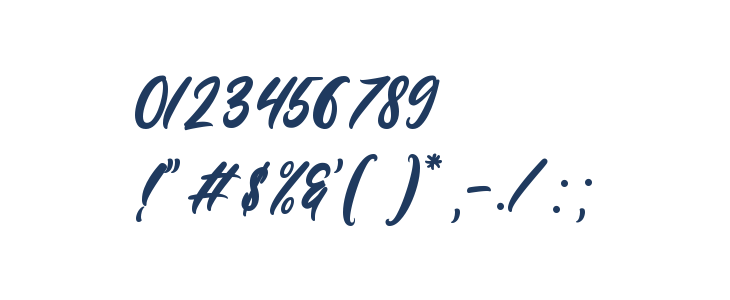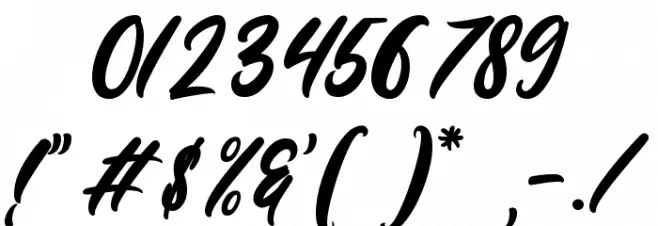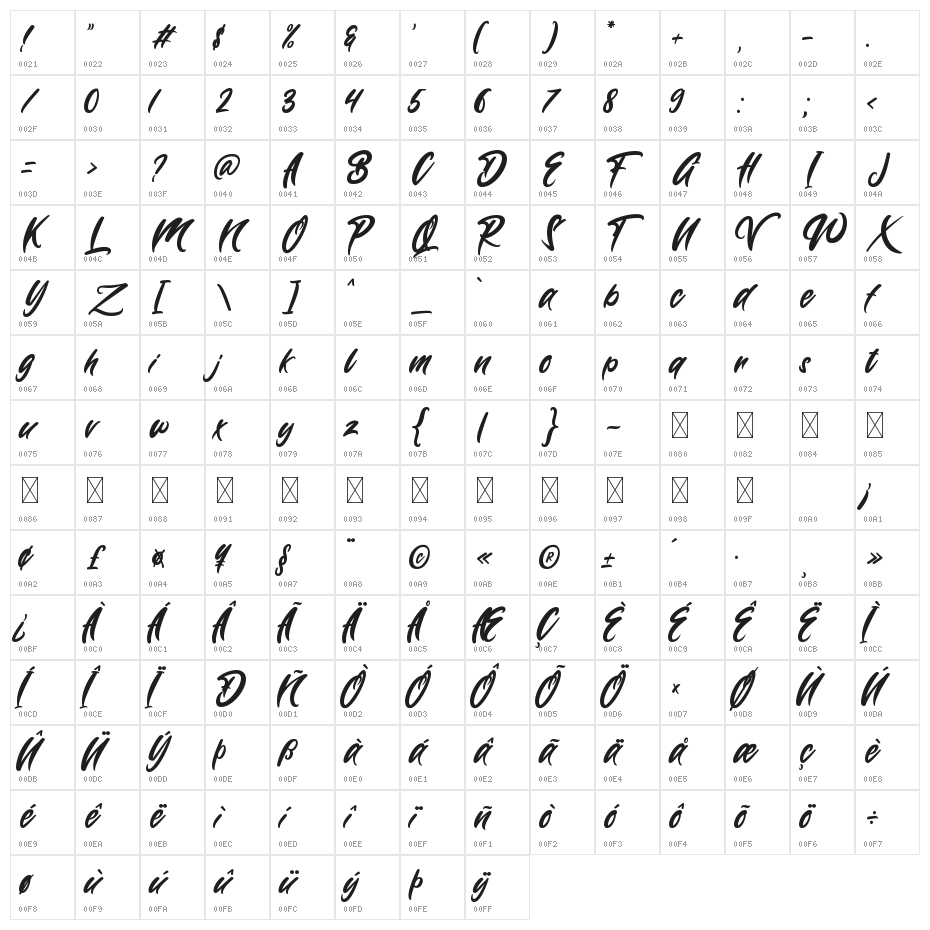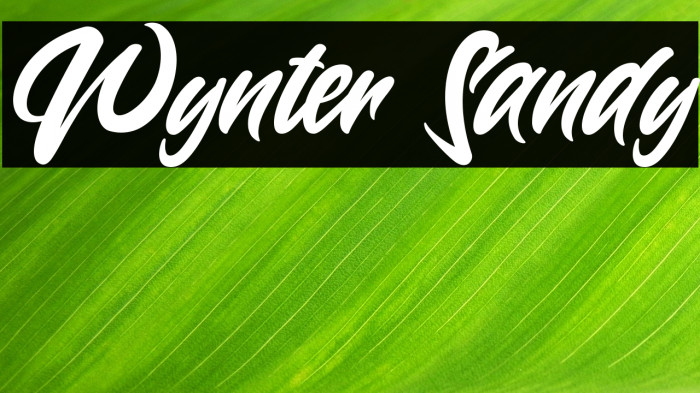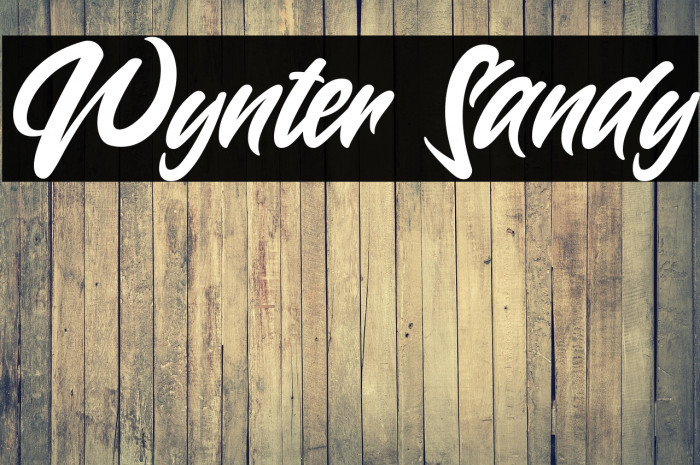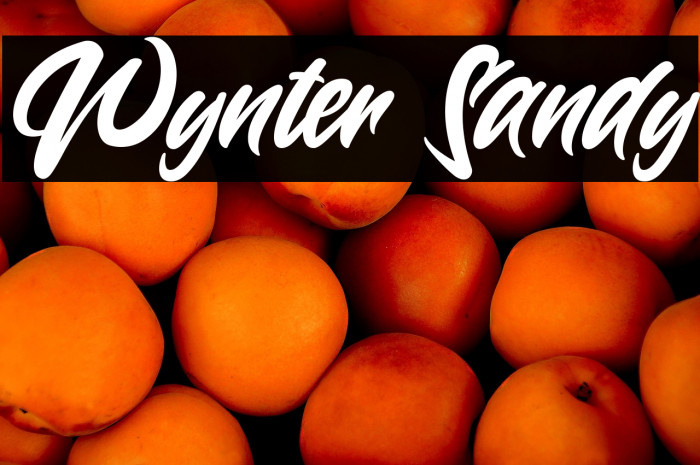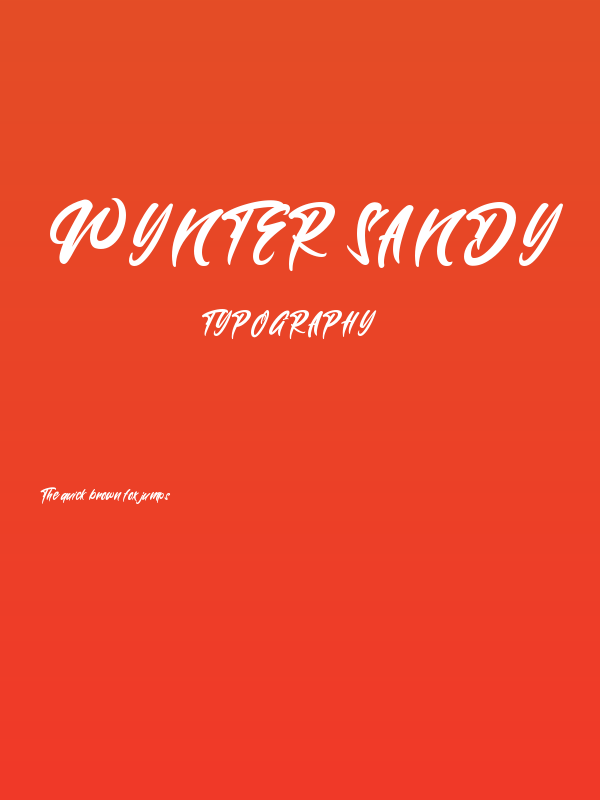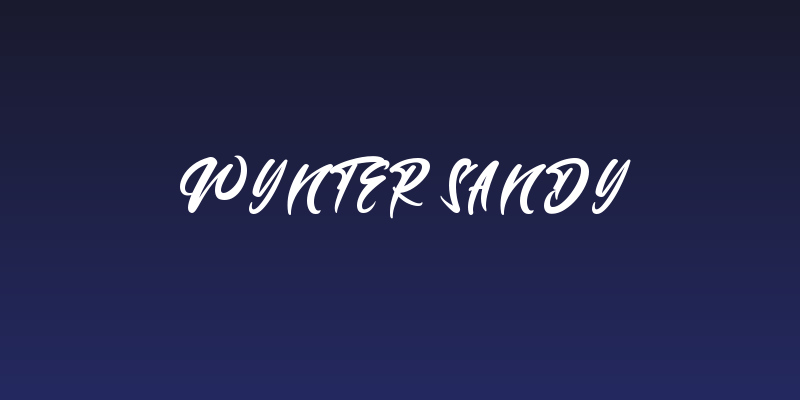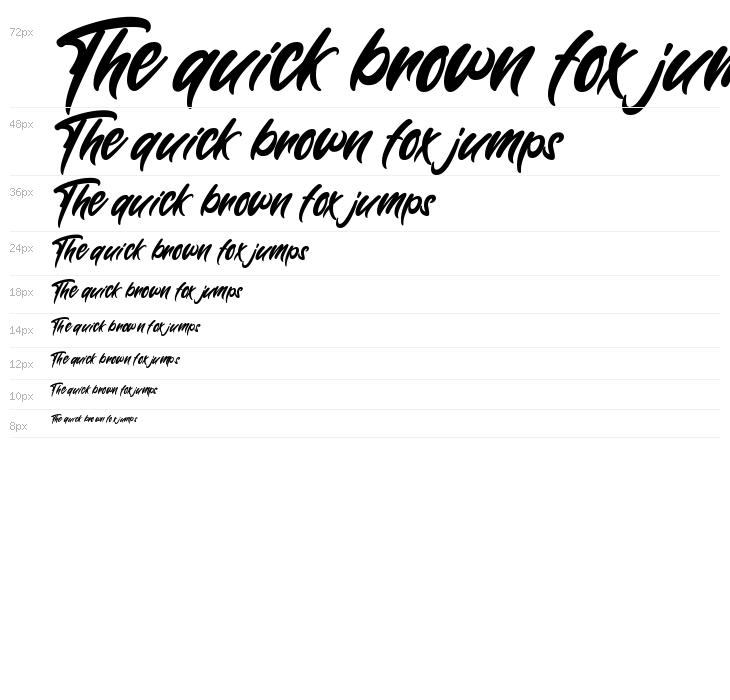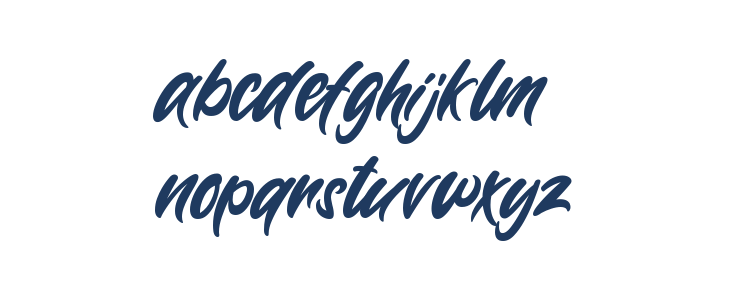
Wynter Sandy Font
Wynter Sandy Description
This font is a bold and expressive script style, characterized by its fluid and dynamic strokes. The letters have a handwritten appearance, with a slight slant that adds to its energetic feel. The uppercase letters are particularly striking, with sweeping curves and elegant flourishes. The lowercase letters maintain a consistent flow, making the font suitable for creating a cohesive and stylish look. The numerals and special characters are designed with the same attention to detail, ensuring versatility across different uses. The overall impression is one of creativity and flair, making it ideal for projects that require a personal touch.